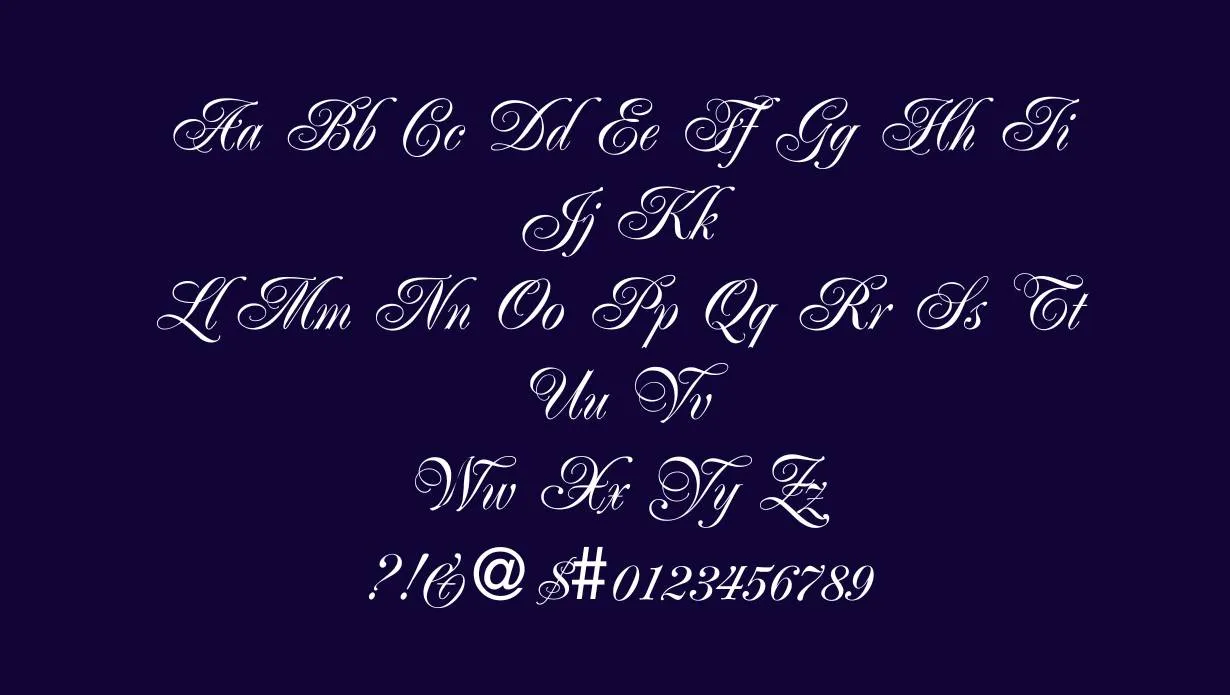
Renaissance Regular Font exudes a classic and timeless style, perfect for projects that aim to evoke a sense of tradition and elegance. With its well-proportioned letters and moderate weight, this font is suitable for formal documents, invitations, or any design where a refined and sophisticated appearance is desired.
The technical details highlight its meticulous craftsmanship, ensuring a polished and traditional look that stands the test of time. Renaissance Regular Font’s design elements are carefully balanced, creating a sense of harmony and grace that enhances the overall visual impact. It is a font that speaks to a sense of enduring elegance, making it a reliable choice for projects that require a touch of timeless sophistication.
| Name | Renaissance Regular Font |
| Designer | Vladimir Nikolic |